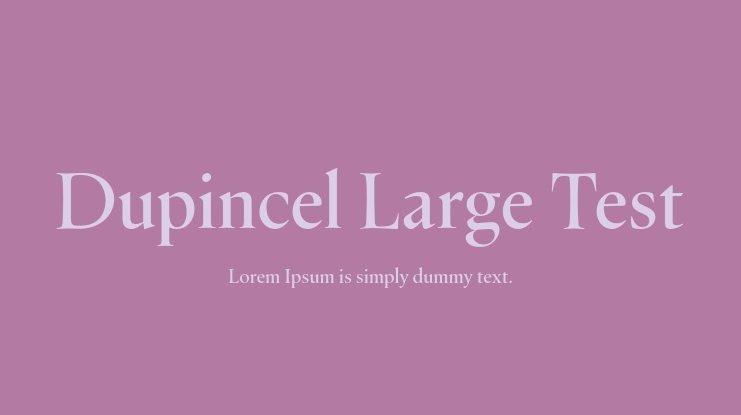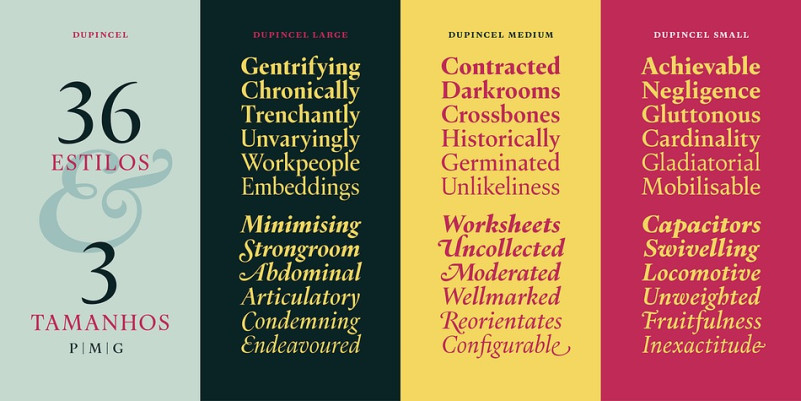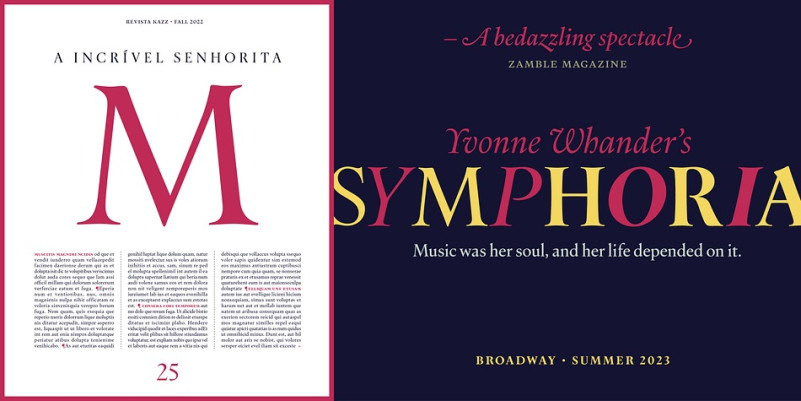
Dupincel Font
Dupincel Serif Font family is a serif font designed by Rodrigo Saiani, Dupincel . This typeface has thirty-eight styles and was published by Plau.
A typeface for telling stories. After seven years through which Rodrigo Saiani worked on Dupincel, Plau’s team still had months of dedication until found a good way of summing up this typeface. All this effort was rewarded, though, when we came up with a motif that gave Dupincel the grandiosity it deserves.
Telling stories is this typeface’s gift because it has the emotion for it, resources for it and the breadth for it. Like all that wasn’t enough, it has the scale for it: optical sizes Small, Medium and Large make Dupincel optimized for stories of every length. From short stories displayed big or long stories on small letters.
We don’t want to dictate the types of stories either, anything goes. But if ornaments make a good fit with that story, we will be even more thrilled. In the end, Dupincel makes us want to find new stories to tell.